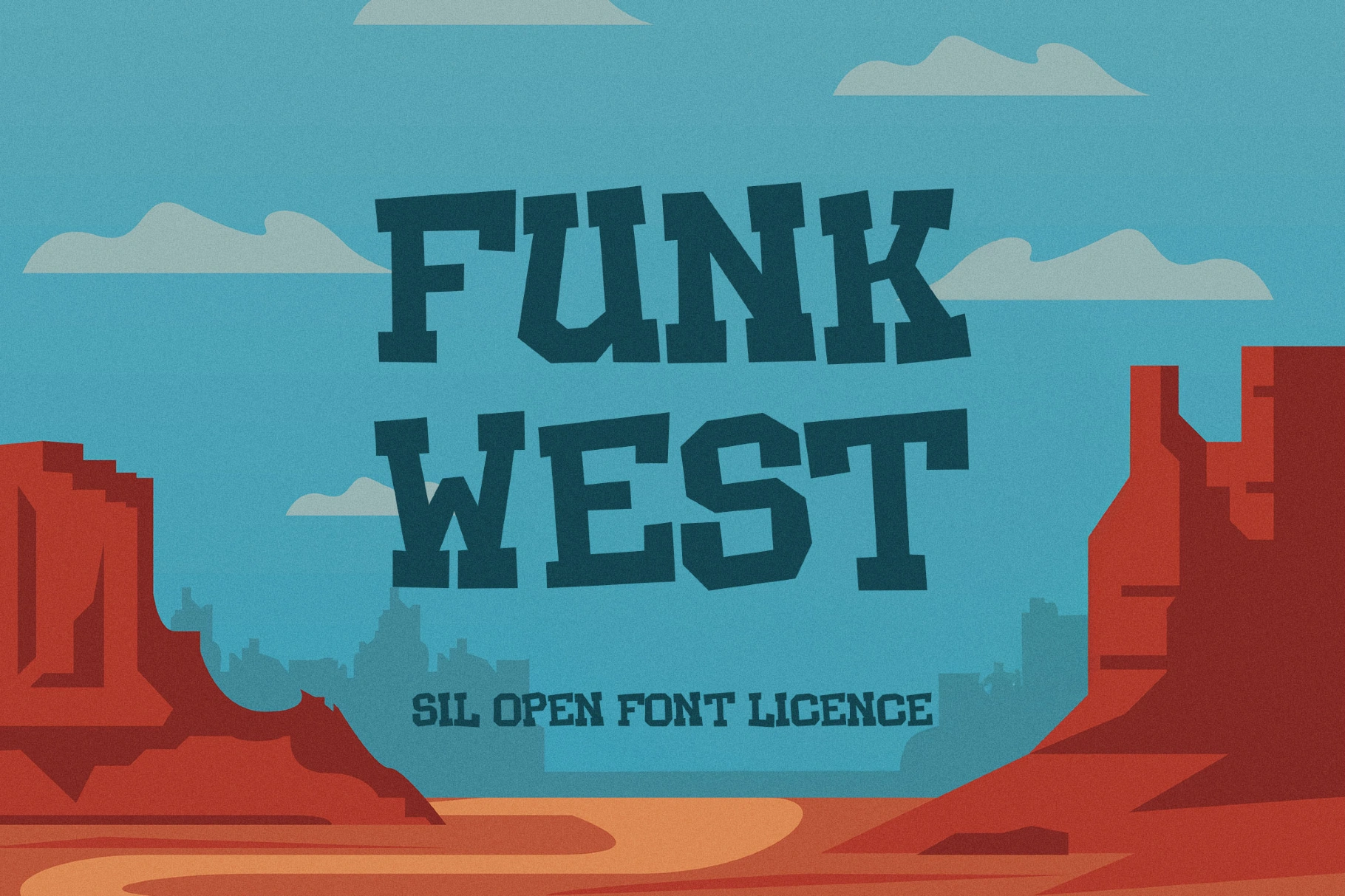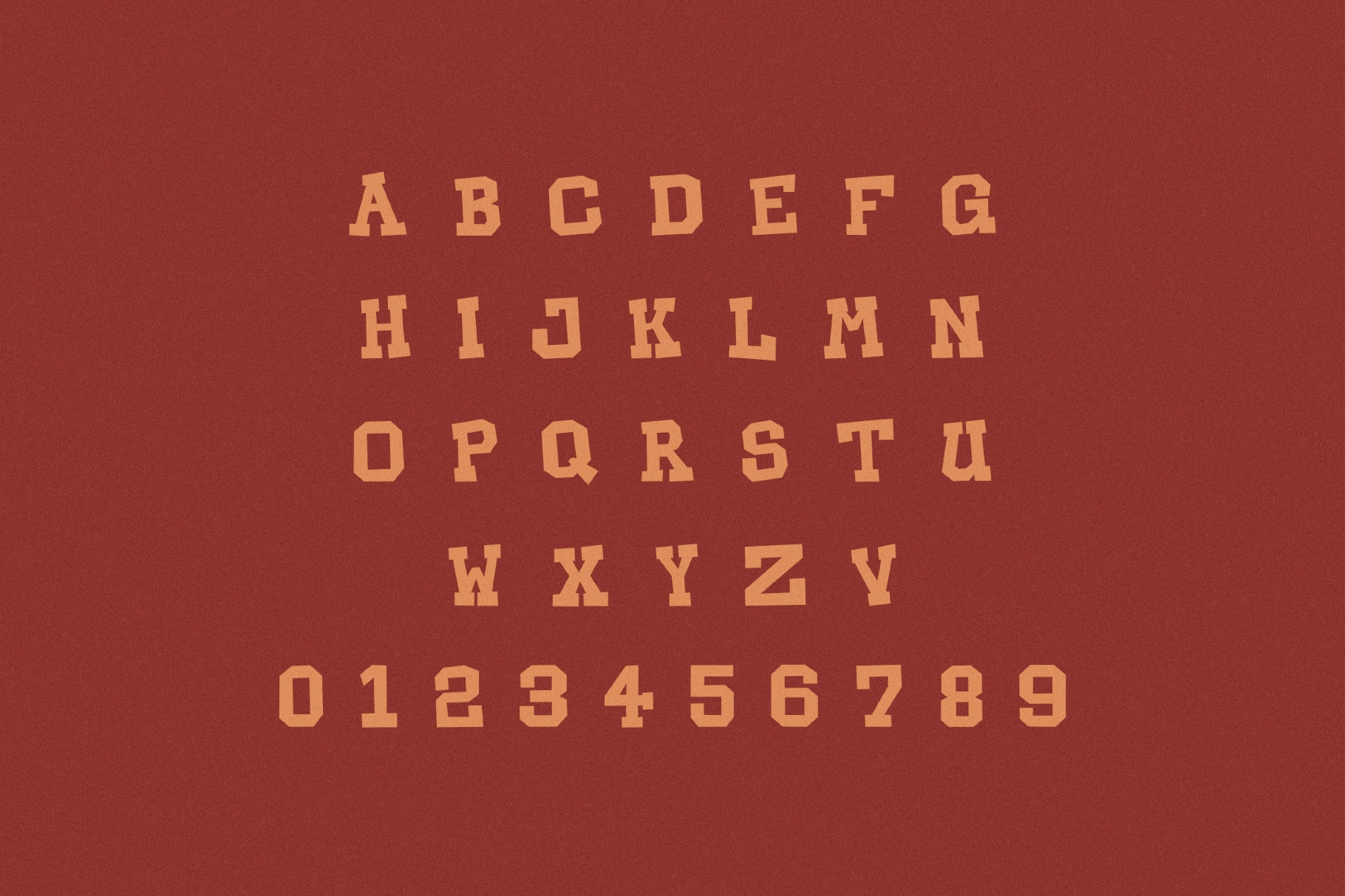
Funkwest Font
Funkwest is a chunky, condensed font with a dusty western poster vibe and a touch of funky 70s record-sleeve lettering. Its swaggering rhythm and bouncy curves are made for poster headlines, vintage-inspired logos, album covers, festival branding, vintage-flavoured packaging, t-shirt graphics, and social promos.
- Uppercase letters A–Z.